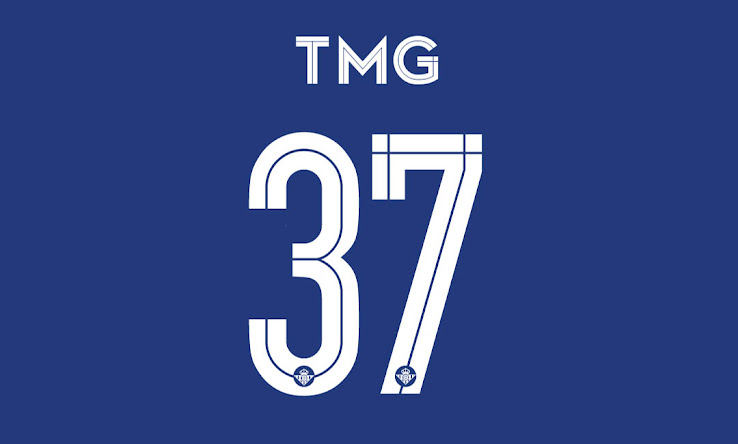
Real Betis 15-16 Kit Font Revealed
This is class. To go with the bespoke design of the Adidas Betis 2015-2016 Kits, the new Real Betis 2015-2016 Typeface introduces a unique look for the La Liga club.
Made for the first time by new kit supplier Adidas, the Real Betis 2015-2016 Home, Away and Third Jerseys are based on Adidas miTeam (Adidas' customization service for shirts) Kits, and were already debuted in Betis' first La Liga match against Villarreal after they gained promotion to the first division.
Real Betis 2015-2016 Font & Numbers
These are the new Real Betis 2015-16 Jersey Numbers.
The new Real Betis 15-16 Kit Numbers feature an angled design with fine lines that run throughout the numbers. A monochromatic version of the famous Real Betis crest is placed inside the Adidas Betis 2015-2016 Kit Numbers.
Mirroring the design of the numbers, the remarkable lettering of the Betis 15-16 Shirts boasts an even more angled design.